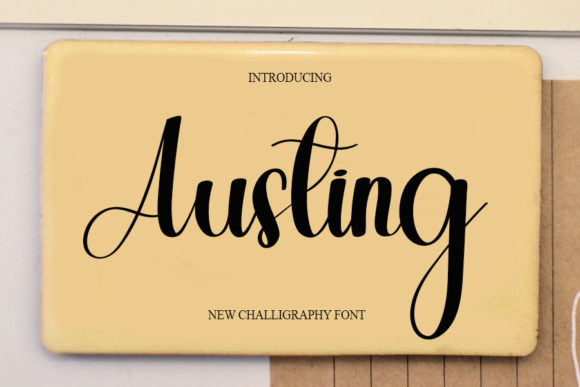
Introducing Austing Font - A Contemporary Handwritten Masterpiece for Design Resumes
In a world where first impressions matter, your design resume holds the key to unlocking your dream job. Austing Font, a breathtaking creation by Inermedia STUDIO, is not just a font; it's an artistic gateway to showcasing your skills and captivating hiring managers from the very first glance.
Crafted with meticulous attention to detail, Austing's elegant strokes evoke a sense of timeless sophistication, effortlessly harmonizing with your creative brilliance. Its contemporary flair breathes life into your resume, making it an irresistible visual treat that stands out from the crowd.
Beyond its aesthetic charm, Austing Font is an embodiment of functionality. Its clear and legible characters ensure that your resume's content remains readable and impactful, while its intuitive flow guides the reader's eyes seamlessly through your qualifications and achievements.
But what truly sets Austing Font apart is its ability to ignite emotions. Its graceful curves and dynamic lines create a subtle yet profound connection with the reader, inviting them to delve deeper into your story and discover the passionate professional behind the words.
Whether you're a seasoned designer seeking a career leap or a budding creative eager to make your mark, Austing Font is your ultimate companion. It's more than just a font; it's a tool that empowers you to present your talent with confidence and leave a lasting impression that resonates long after your resume is closed. Embrace the power of Austing Font today and watch as your design resume transforms into a captivating masterpiece that opens doors to new horizons of success.